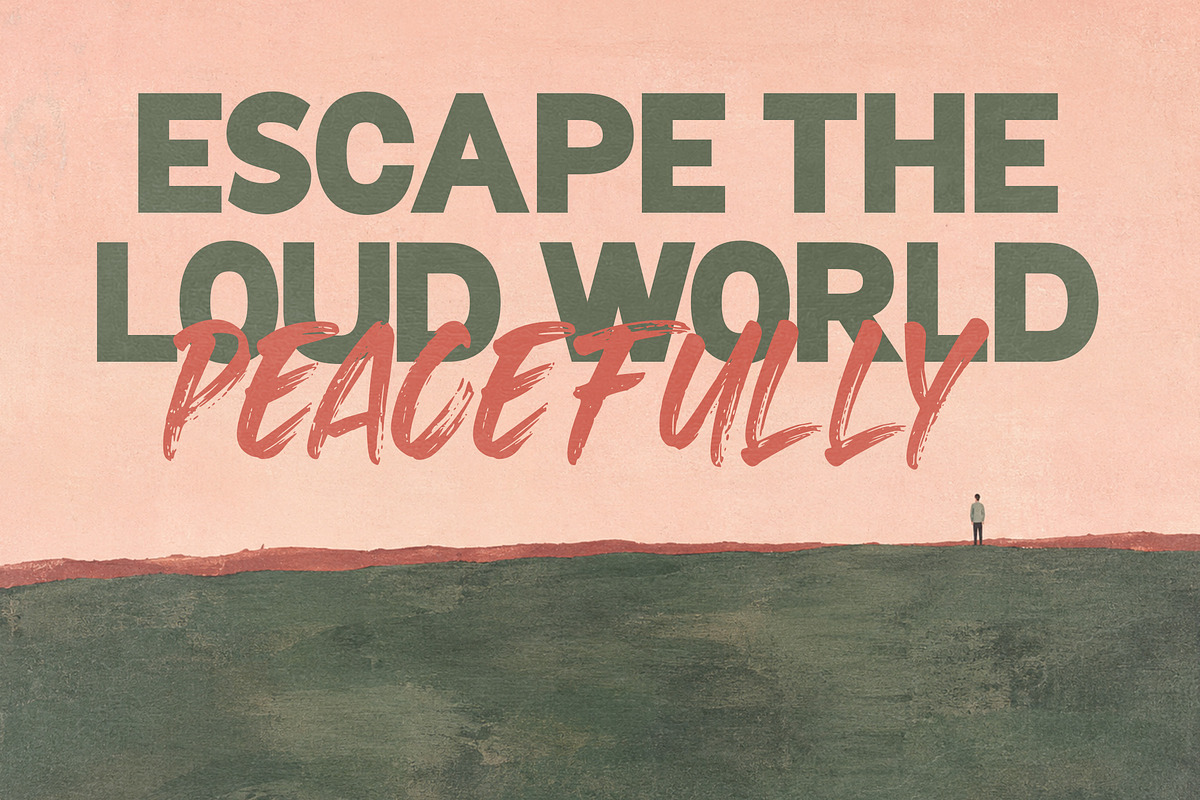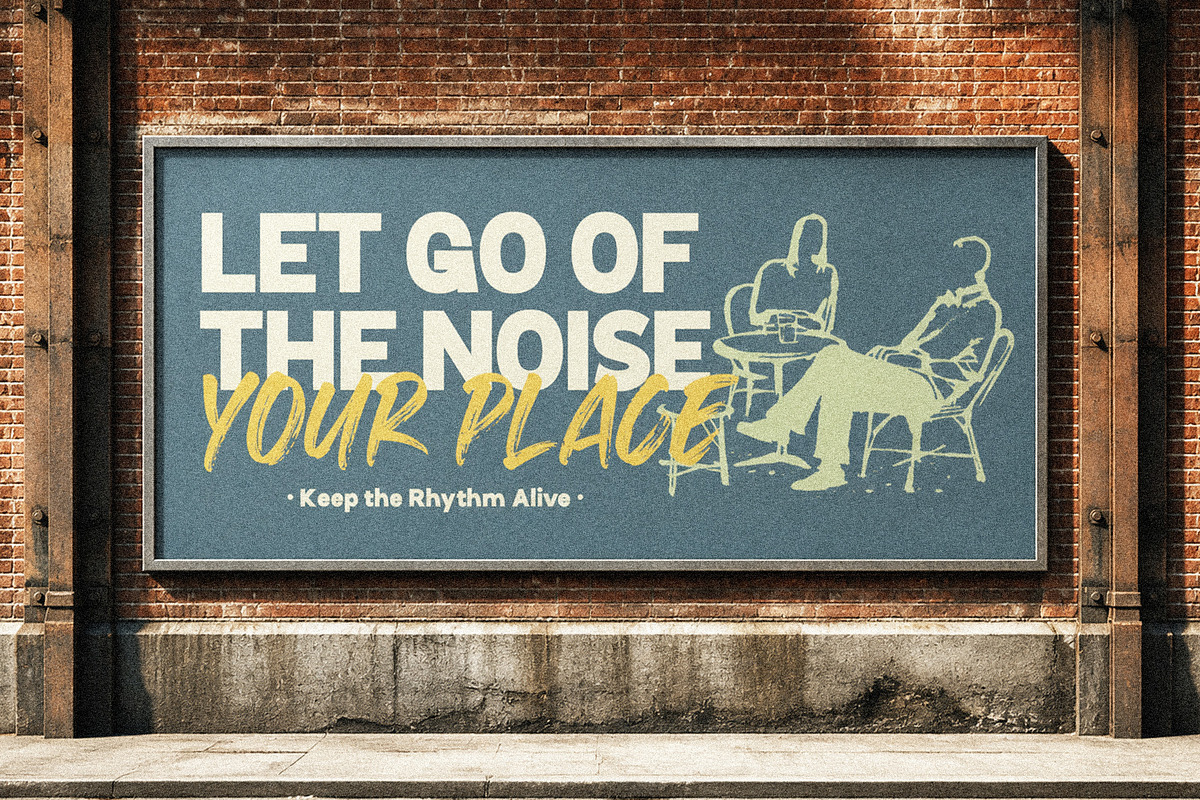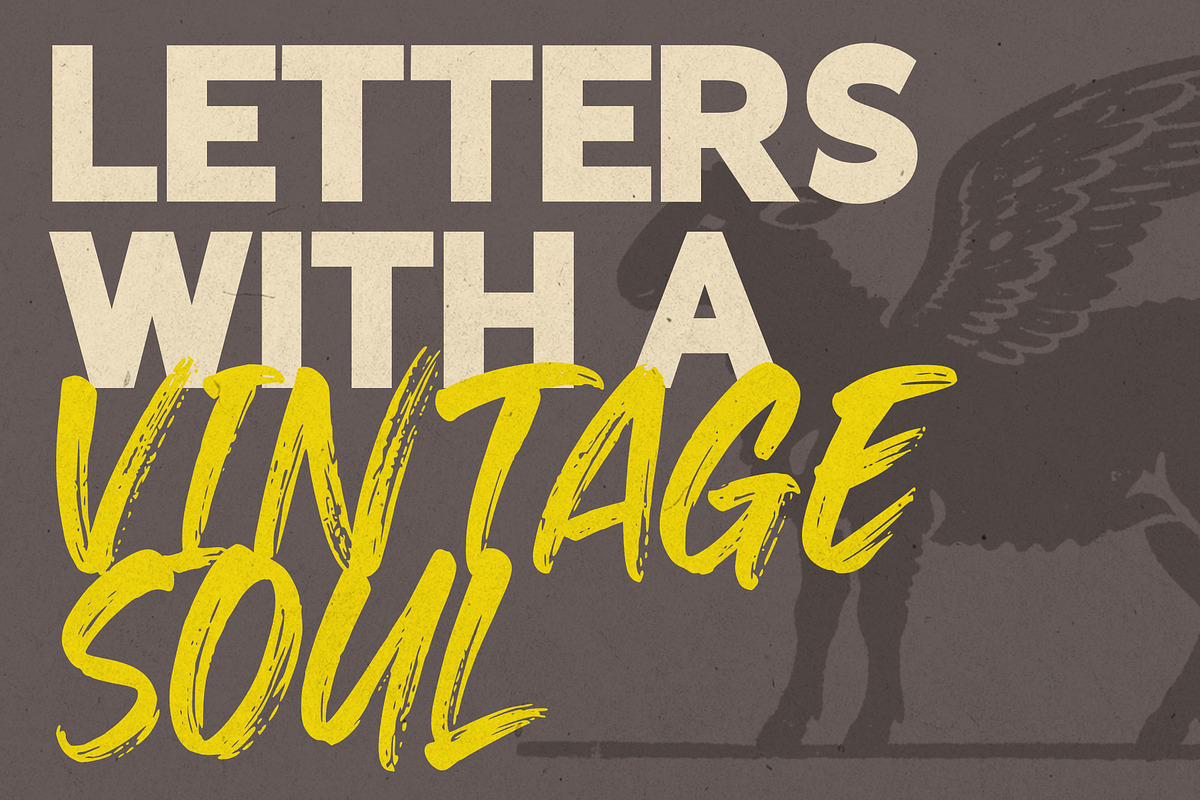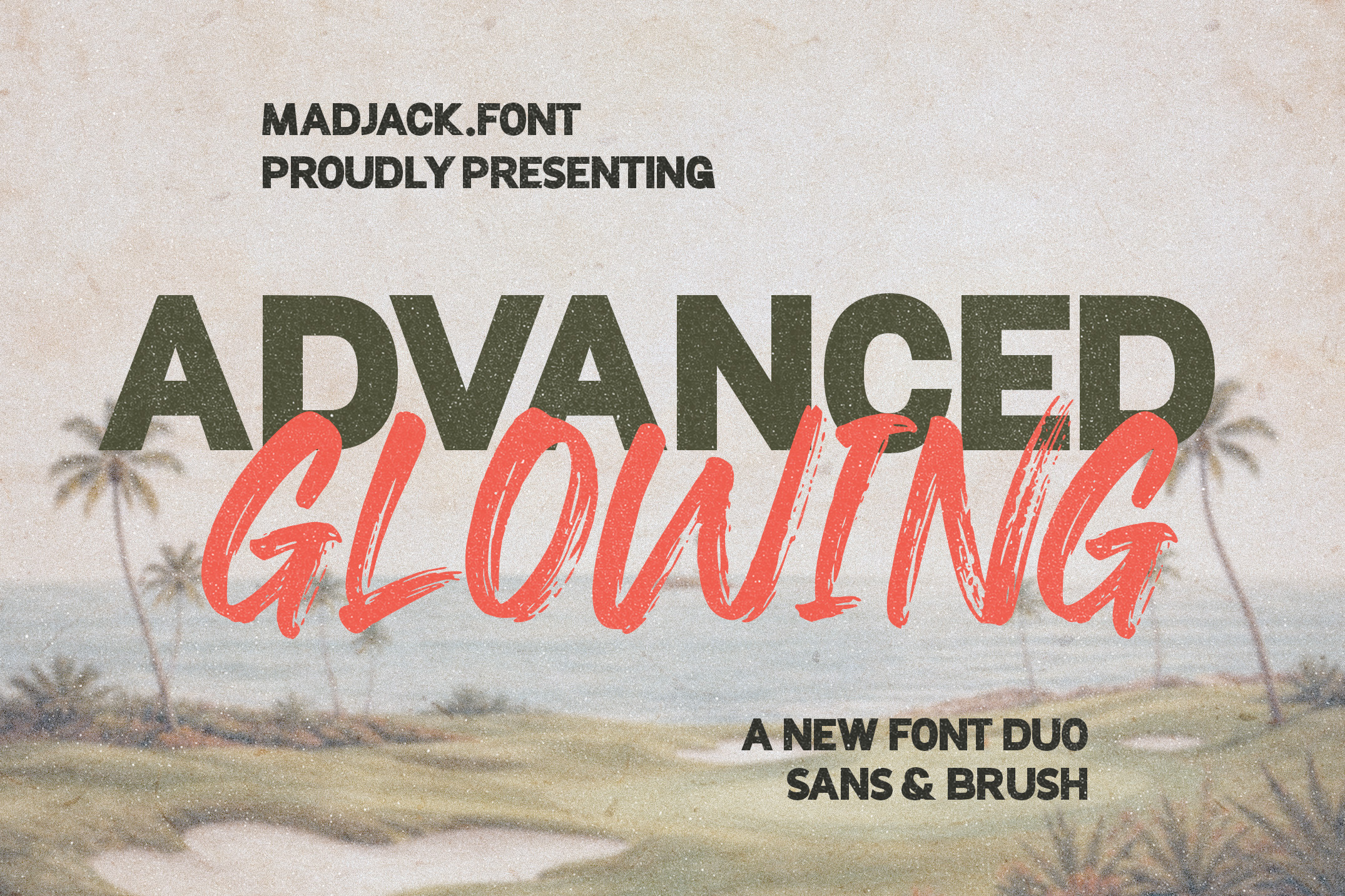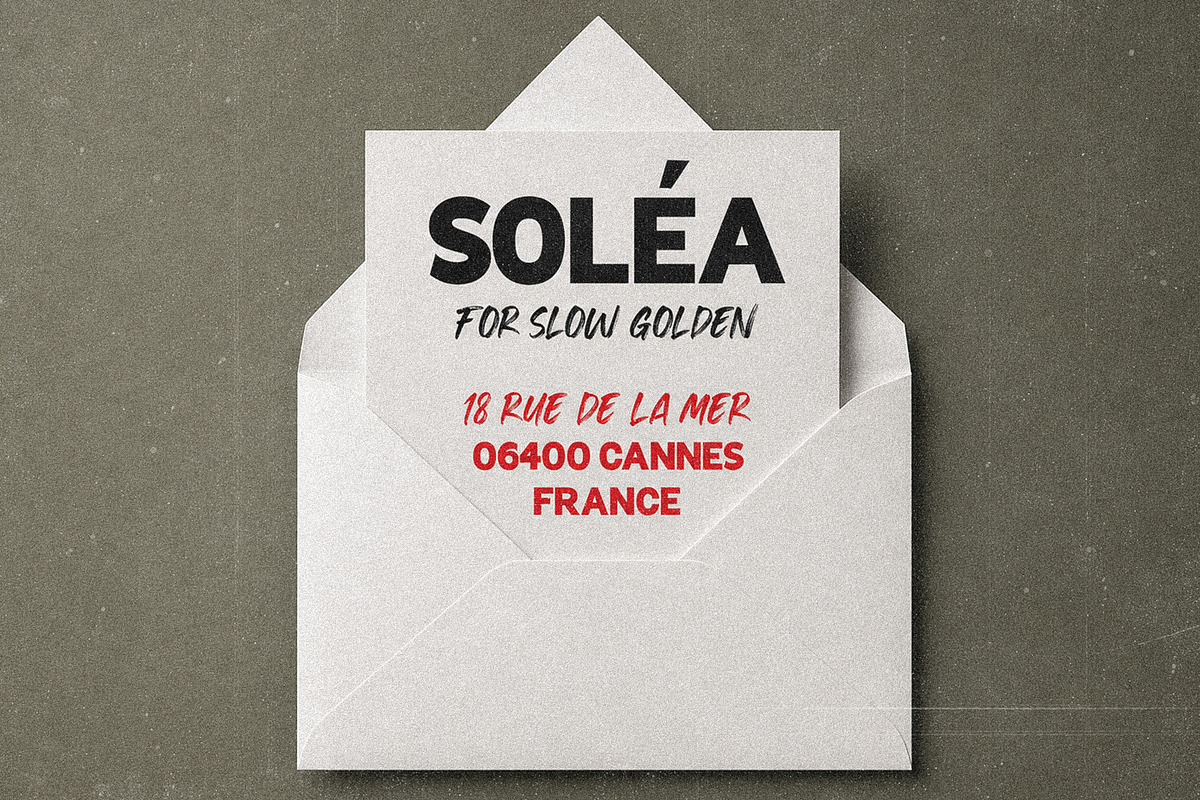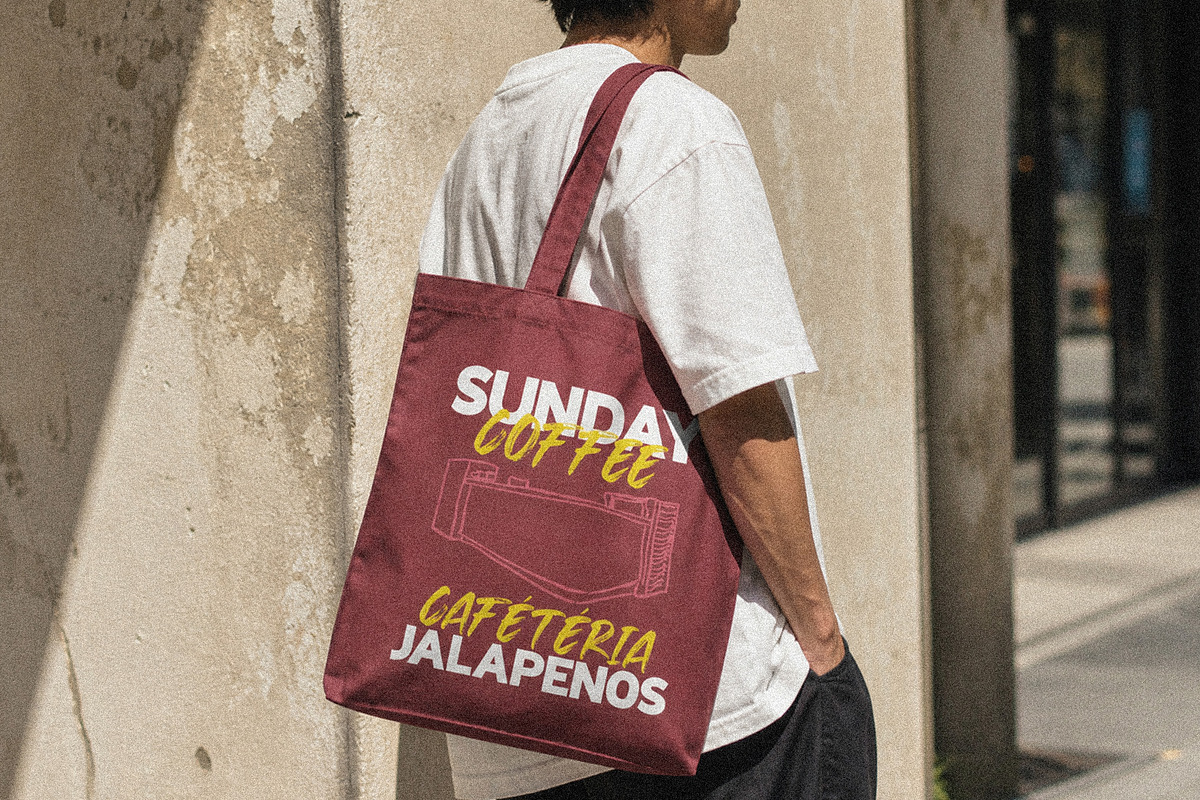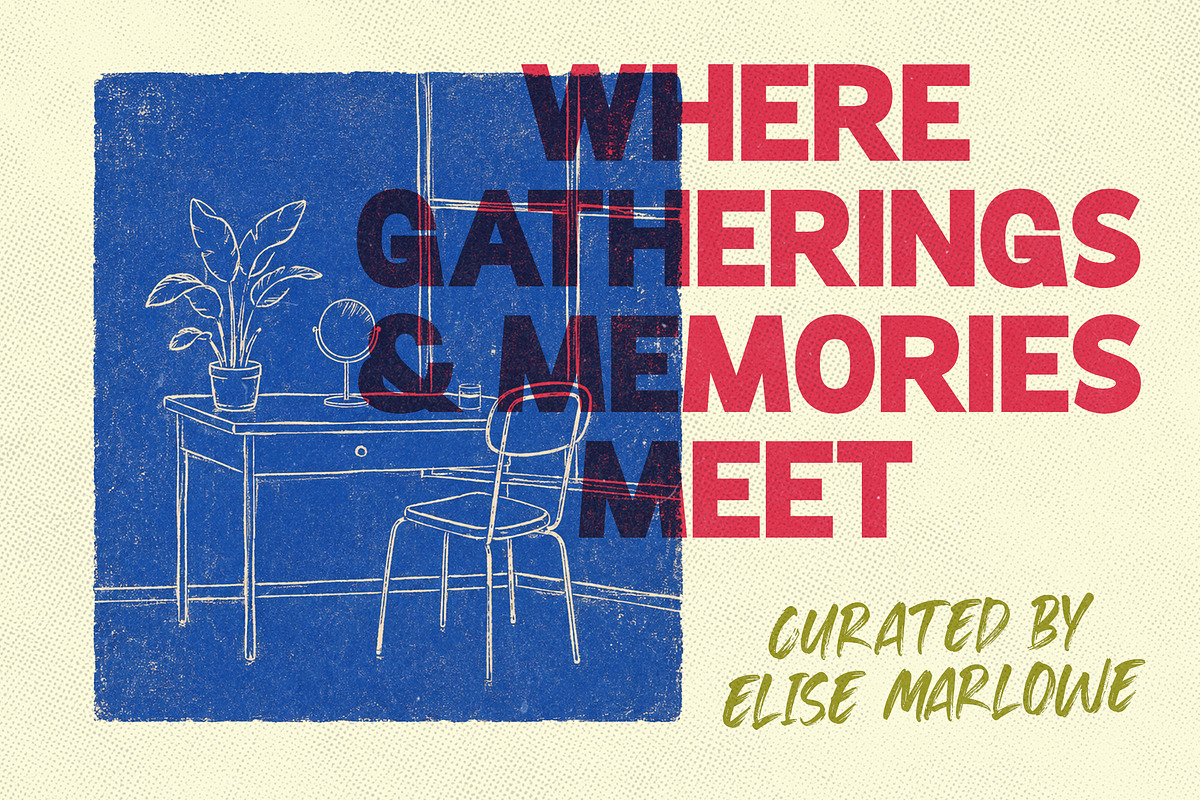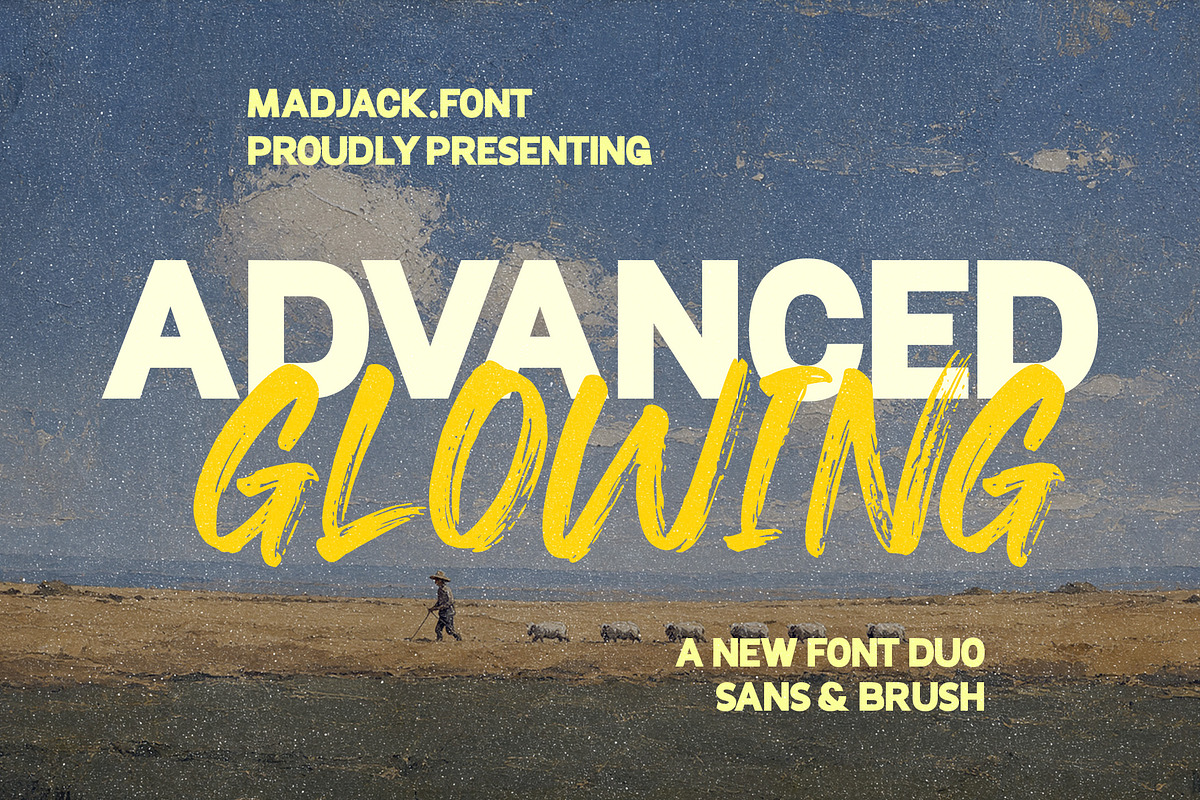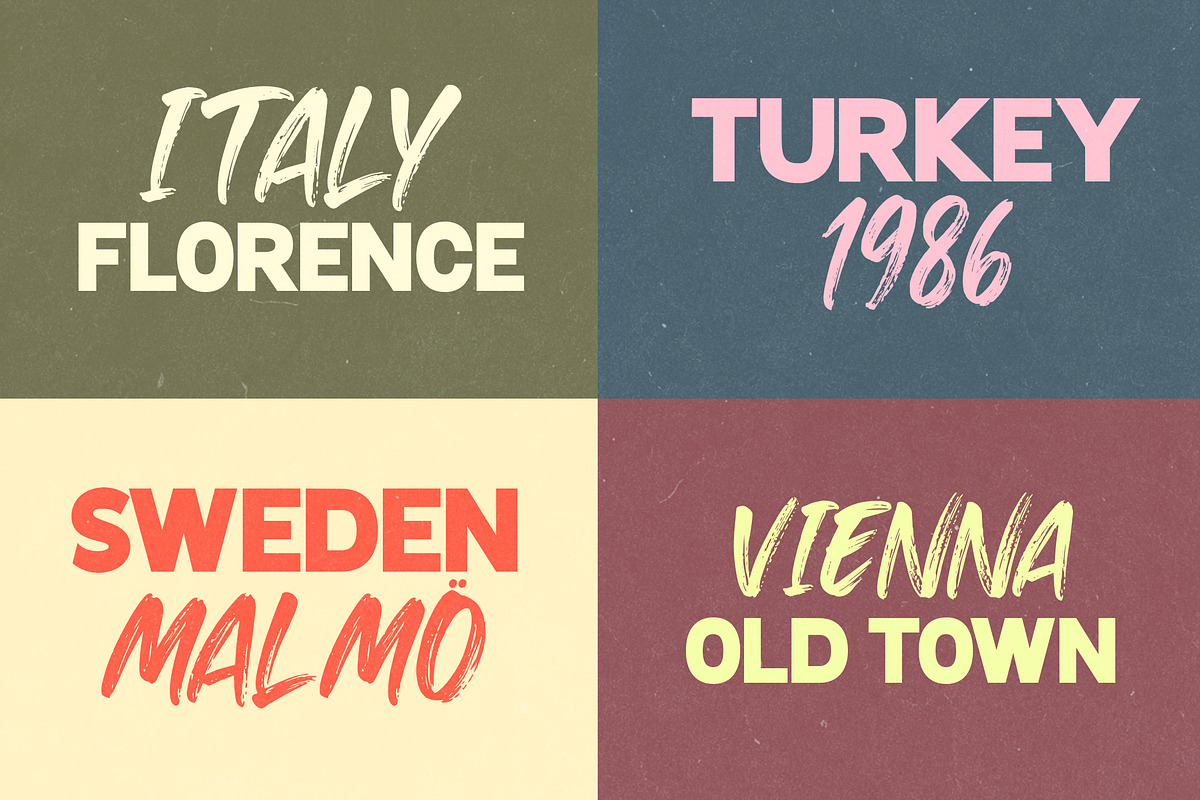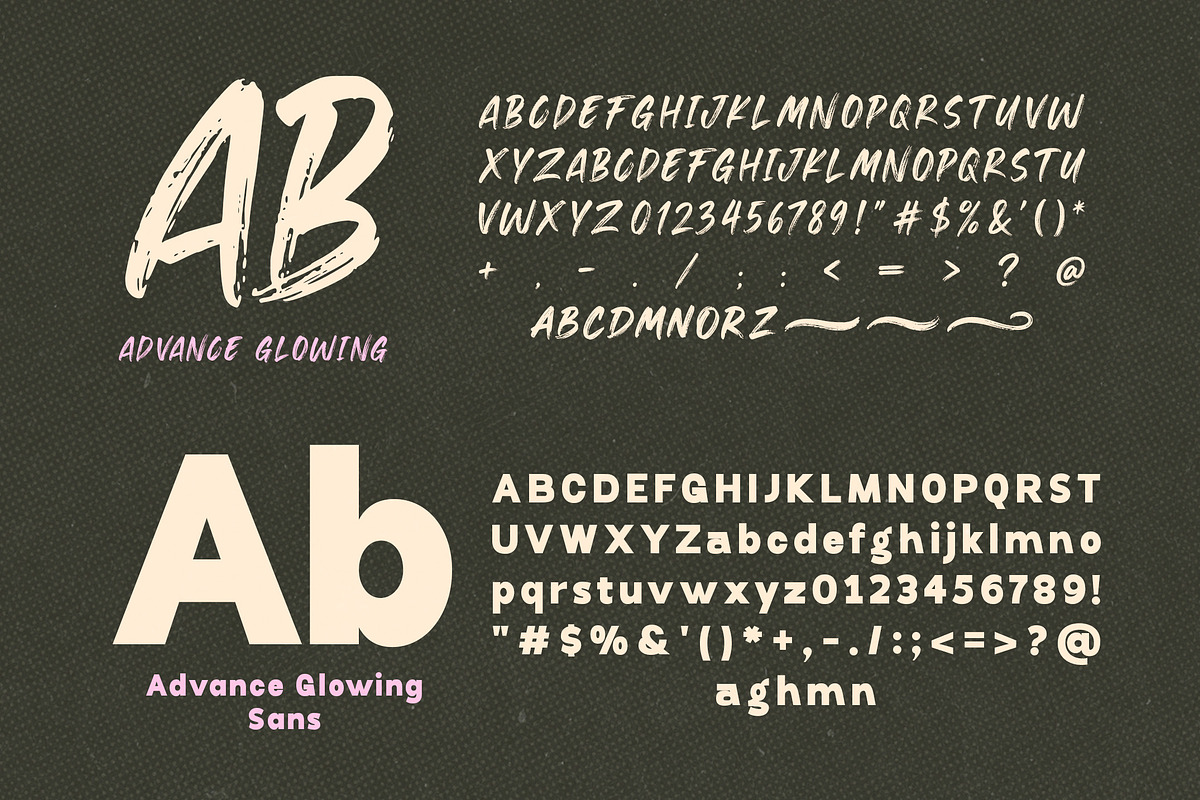
Advance Glowing - Duo Font
Advance Glowing is a handcrafted font duo consisting of a bold sans font and a brush script. You can use this font for a variety of purposes, especially for designs that require a retro and classic feel, such as posters, logos, quotes, and branding. The alternates, ligatures, and lines in the script font will enhance your projects. This font duo also supports multiple languages!
With graceful ligatures, harmonious contrast, and sophisticated letterforms, Advance Glowing is perfect for luxury branding, wedding invitations, editorial design, and any project that seeks to evoke beauty, sophistication, and a fresh sense of inspiration.